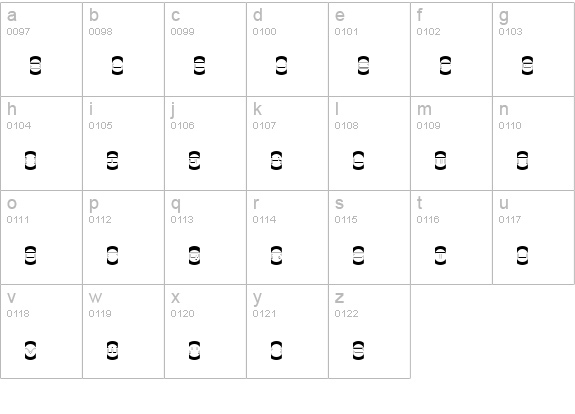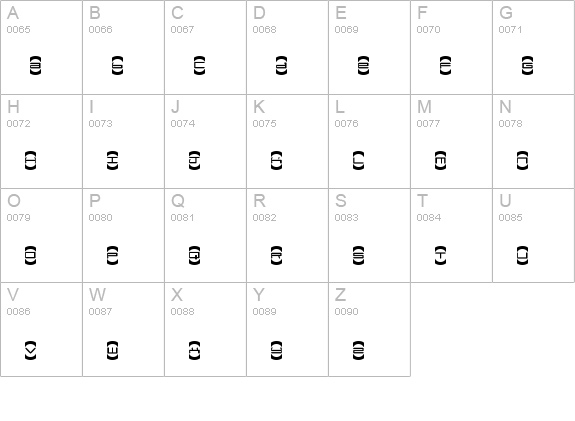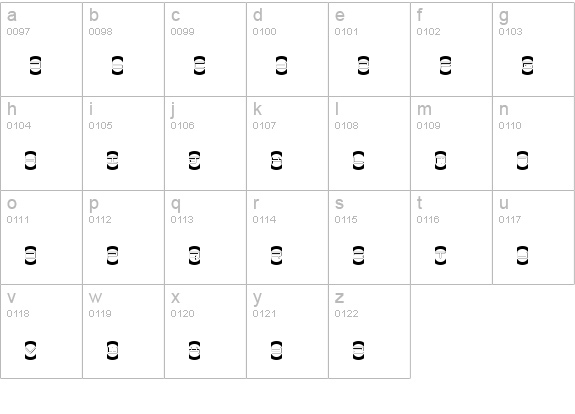
Mister Easy Font Details
Mister Easy font is a stylish and modern typeface that exudes sophistication and elegance. Its sleek lines and charming curves make it perfect for a wide range of design projects, from branding to packaging to invitations. This versatile font is sure to add a touch of class to any creative endeavor. Best of all, Mister Easy font is completely free to download at FontsMarket.com. So you can easily add this beautiful typeface to your collection without any cost. Don't miss out on the opportunity to elevate your designs with the timeless appeal of Mister Easy font. Download it today and let your creativity shine!